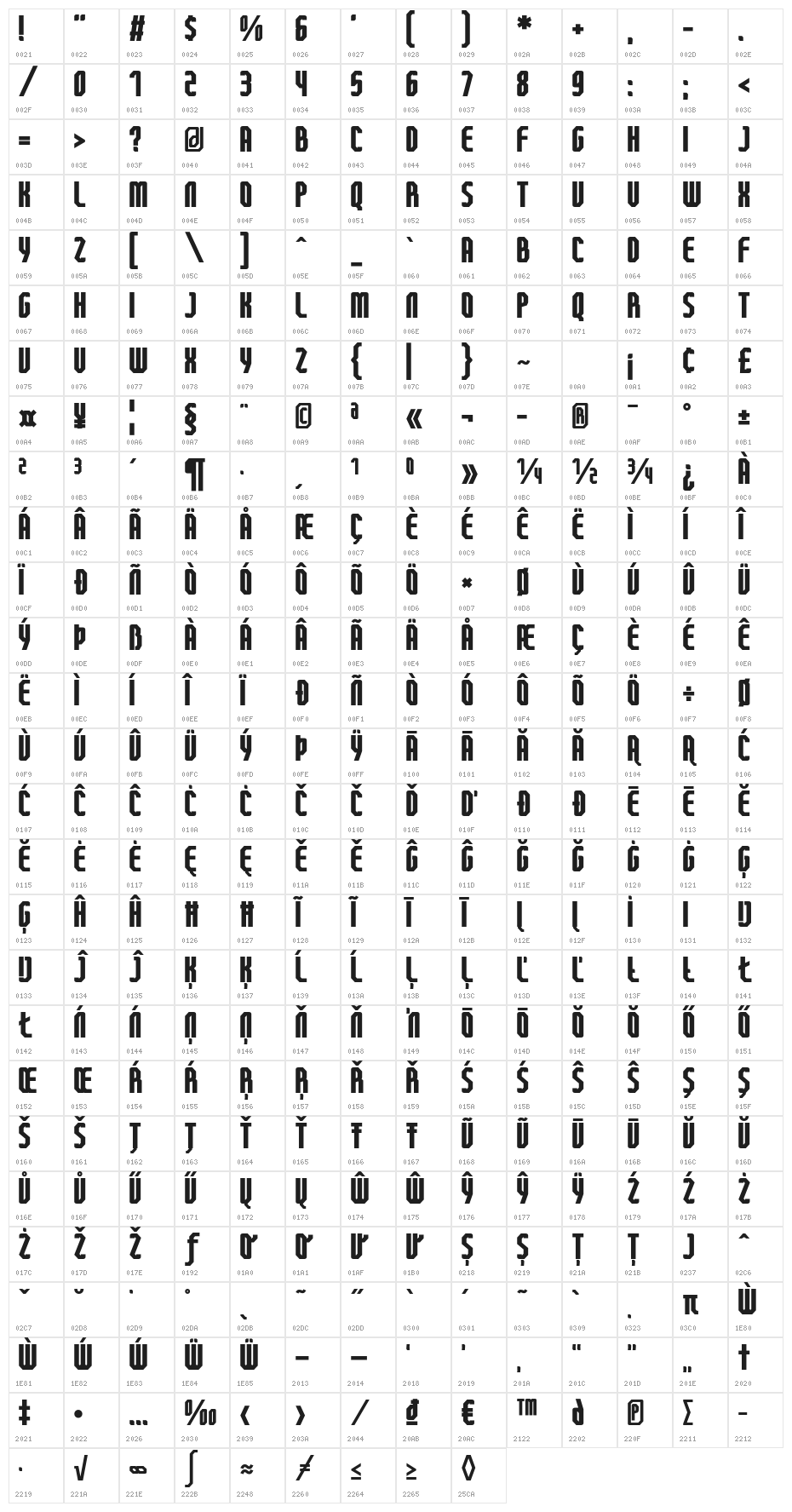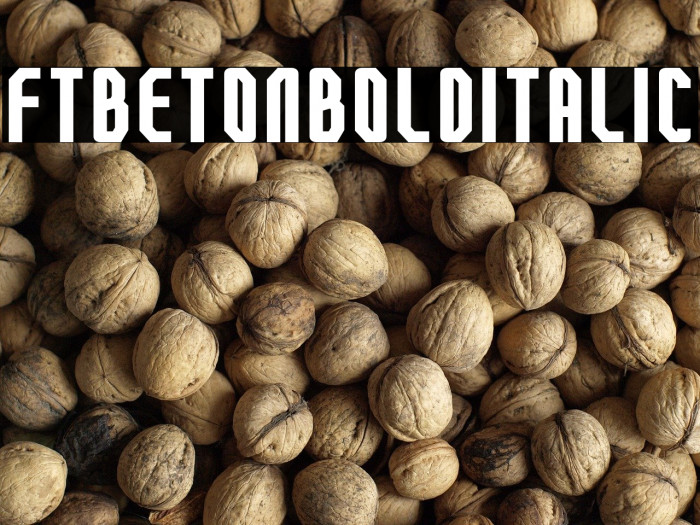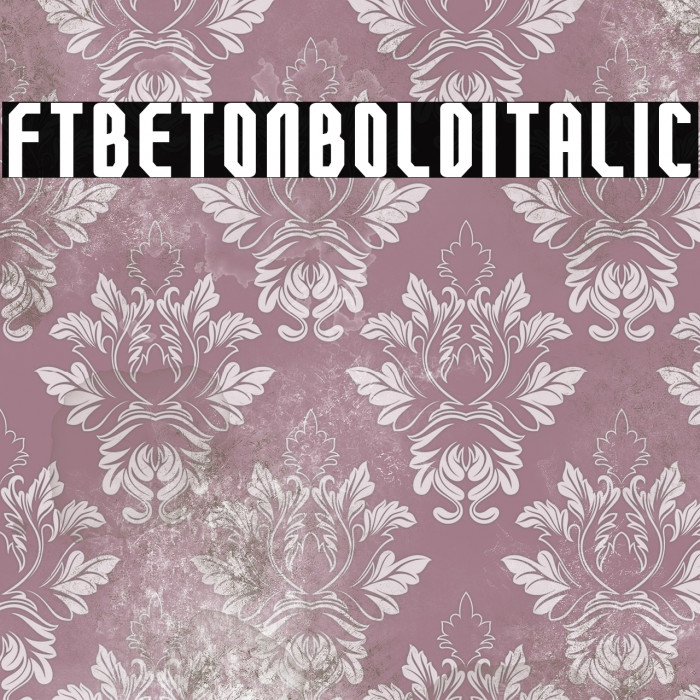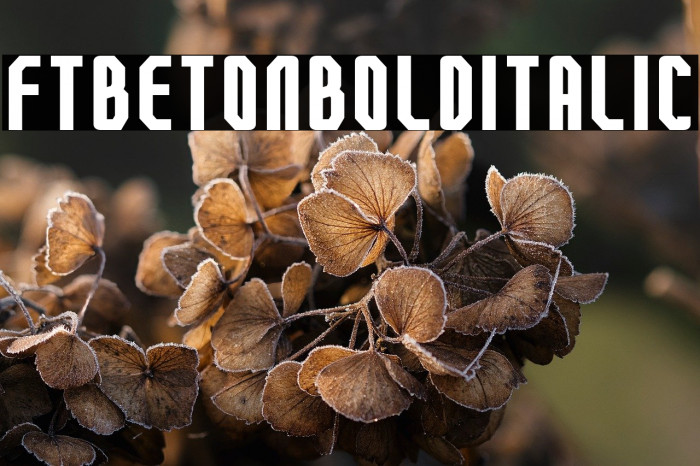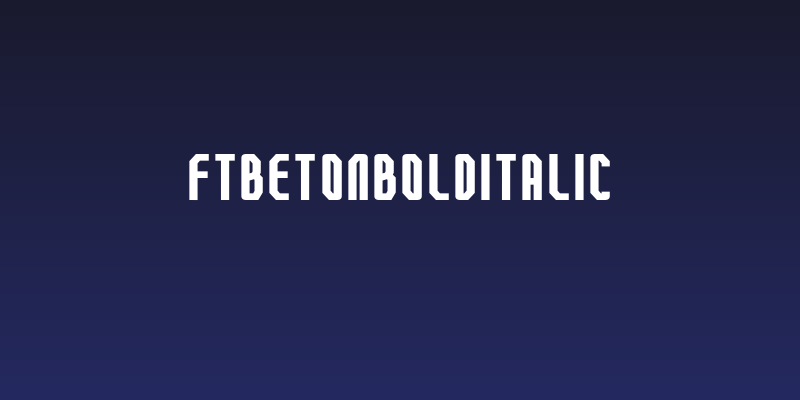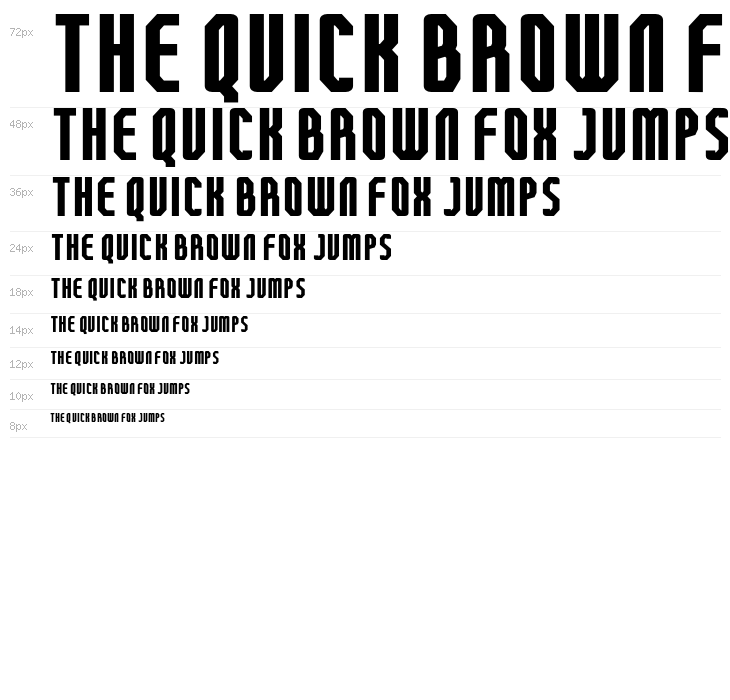
FTBetonBoldItalic Font
FTBetonBoldItalic Description
This font features a bold and striking design with a geometric and angular style. The characters are constructed with thick, uniform strokes that give it a strong presence. The uppercase and lowercase letters maintain a consistent height, contributing to a cohesive and structured appearance. The numbers and special characters follow the same design principles, ensuring uniformity across all glyphs. The font's boldness and angularity make it suitable for impactful and attention-grabbing designs. Its modern and industrial aesthetic is ideal for projects that require a strong visual statement.